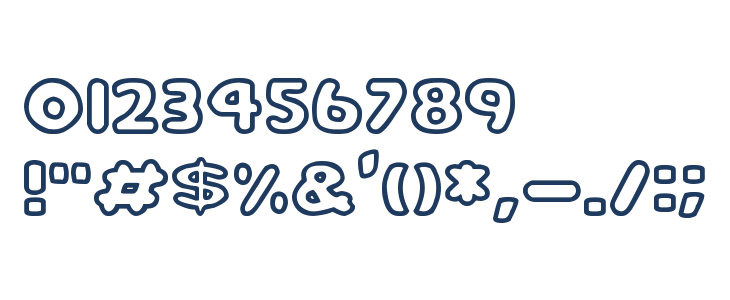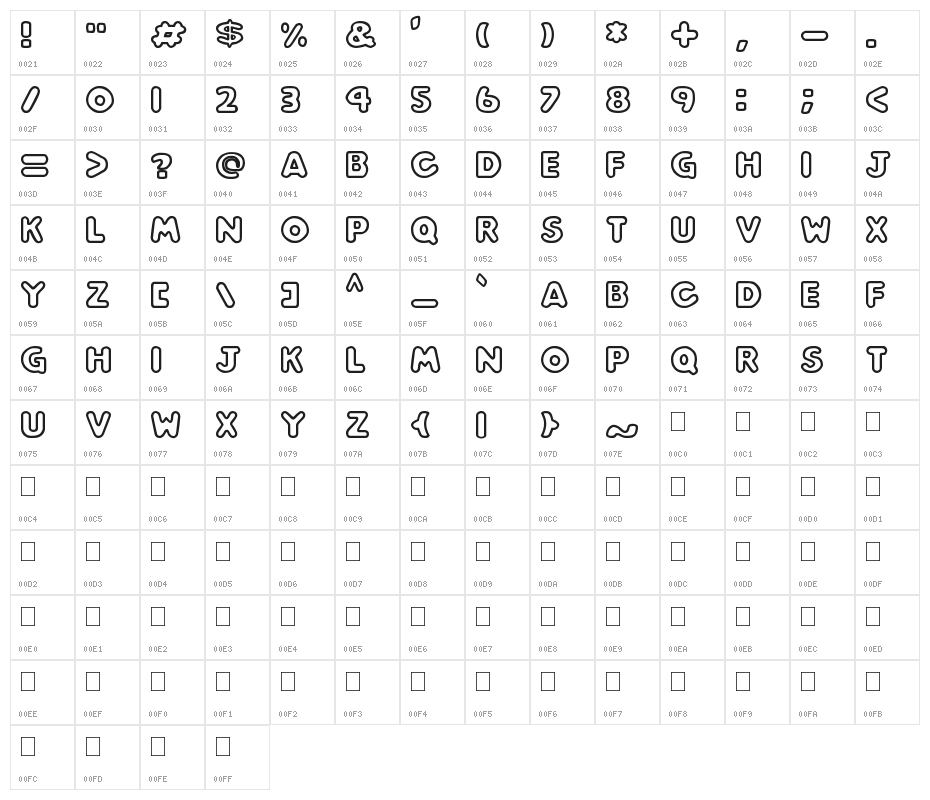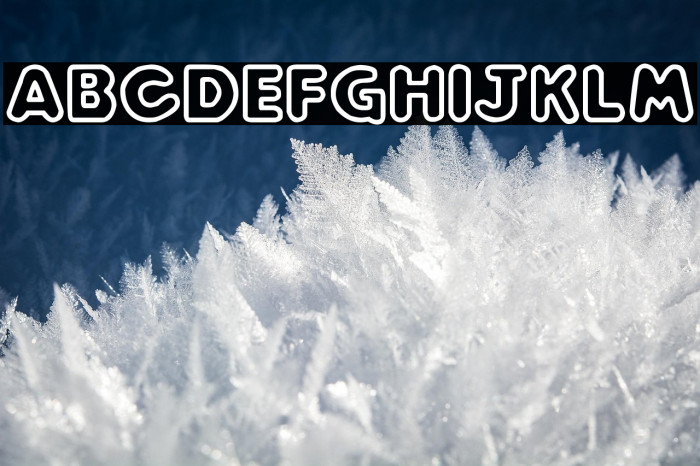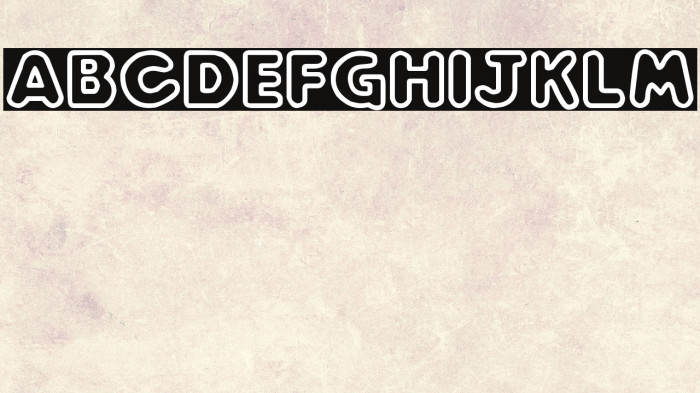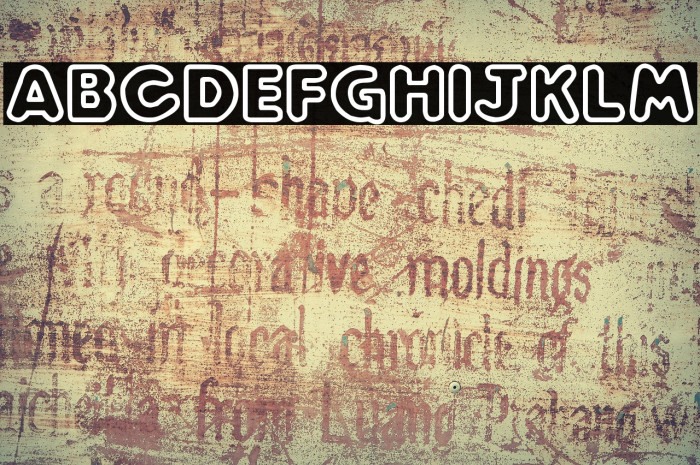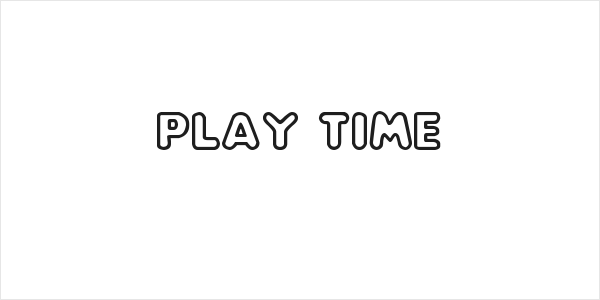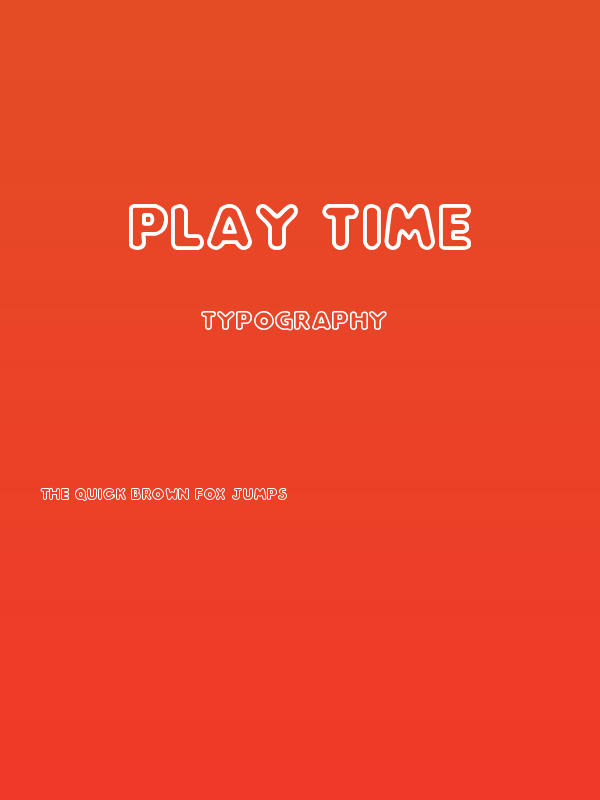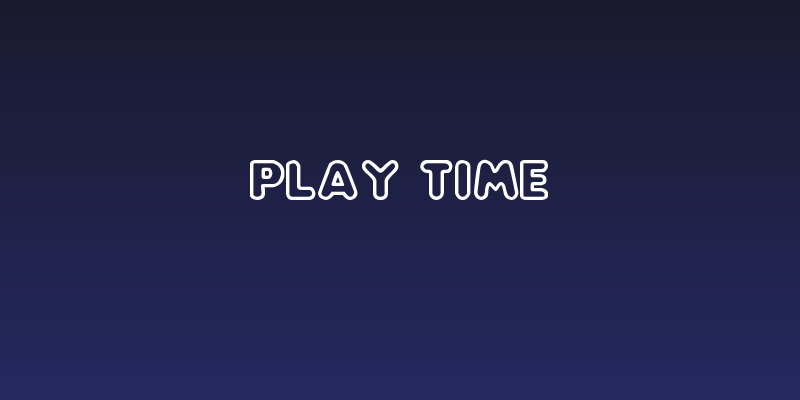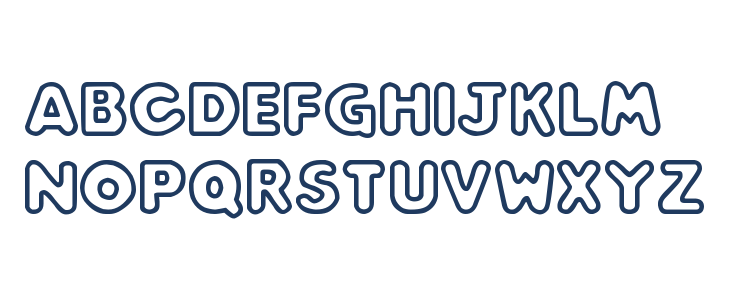
Play time Font
Play time Description
This playful and bold font features a unique outline style that gives it a fun and approachable appearance. Each character is crafted with a thick, consistent stroke that forms a hollow interior, creating a striking visual effect. The letters are rounded and smooth, contributing to a friendly and informal vibe. The font maintains uniformity across uppercase, lowercase, and numeral characters, ensuring readability and coherence. Special characters are also included, matching the overall playful aesthetic. This font is ideal for projects that require a touch of whimsy and creativity.
Overall StylePlayful
Proposed ProjectsIdeal for children's books, playful branding, party invitations, and creative posters.